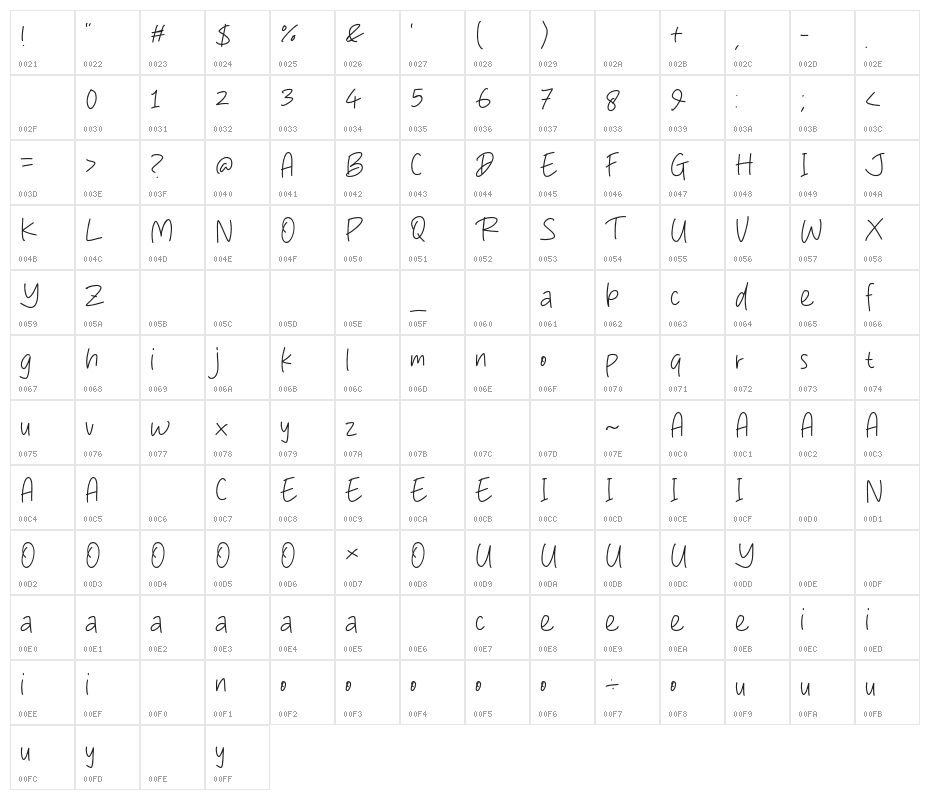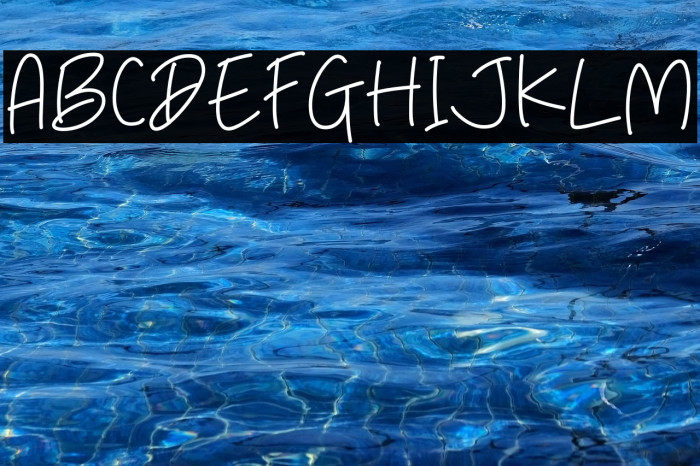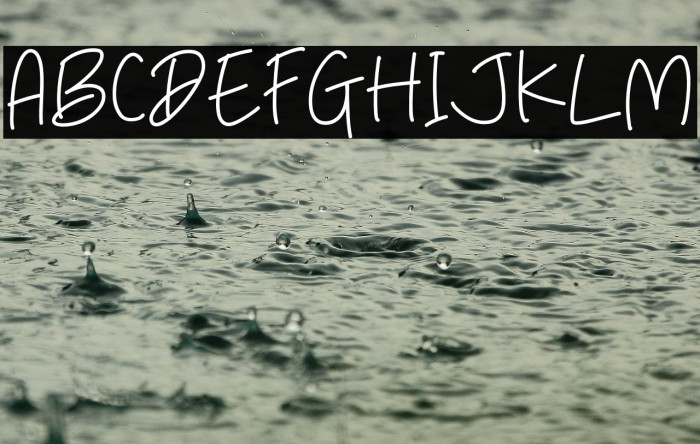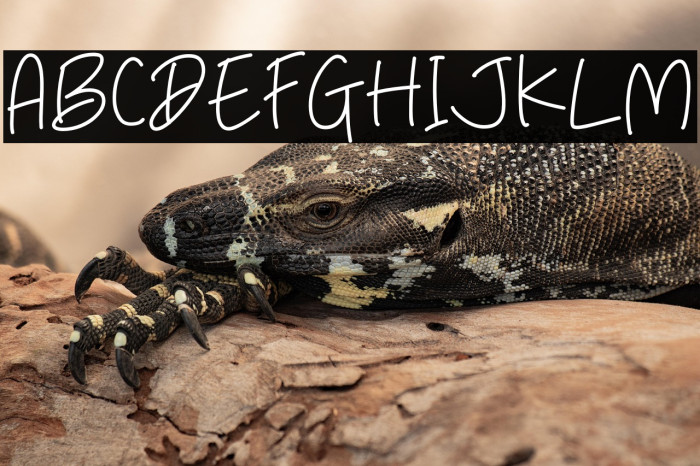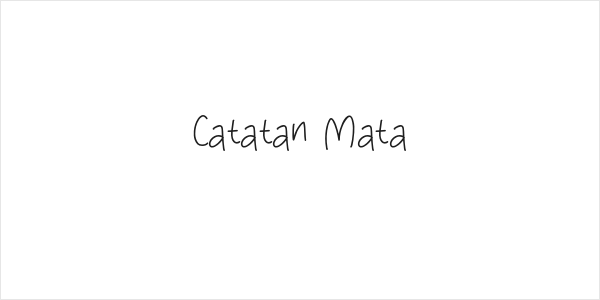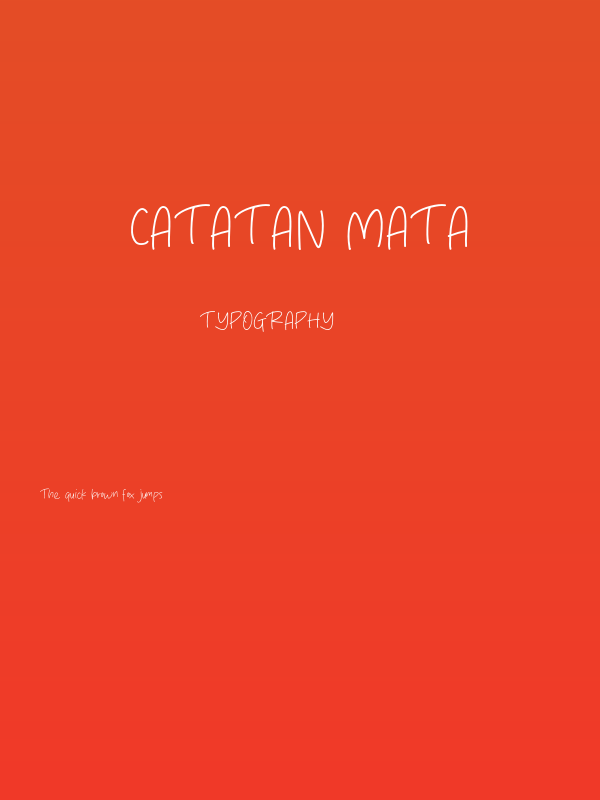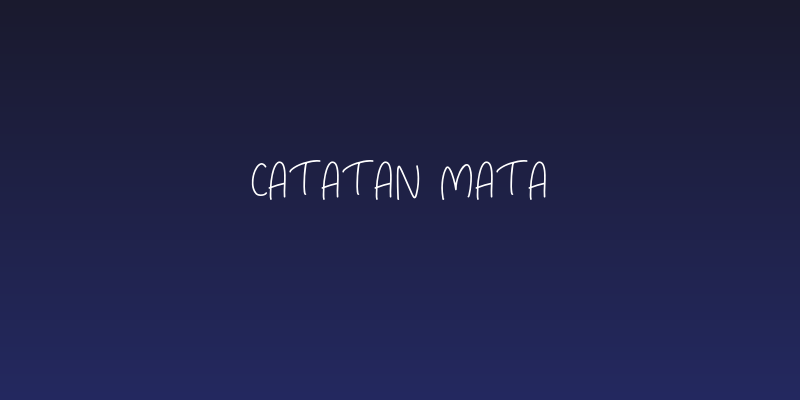
Catatan Mata Font
Catatan Mata Description
This font exhibits a playful and casual handwritten style, characterized by its smooth, flowing strokes and slightly irregular letterforms. The uppercase letters are bold and confident, while the lowercase letters maintain a consistent, friendly appearance. Numbers and special characters are designed to match the overall informal aesthetic, making them easy to read while retaining a personal touch. The font's design is approachable and versatile, suitable for a variety of creative projects. Its informal style adds a touch of personality and warmth to any text, making it ideal for personal notes, invitations, and creative branding.
| Use Case | Invitations, Personal notes, Creative branding |
| Proposed Projects | Ideal for personal notes, invitations, creative branding, and informal communications. |